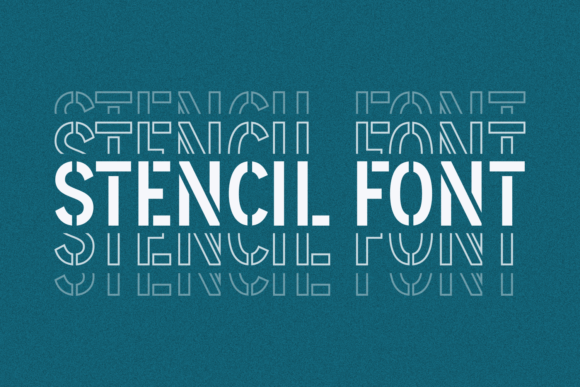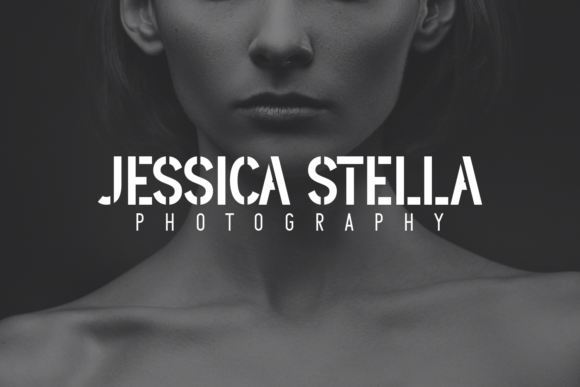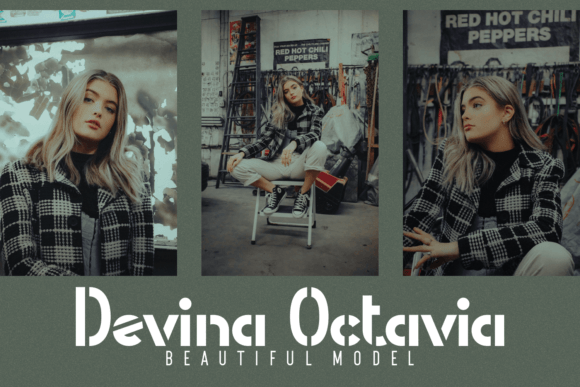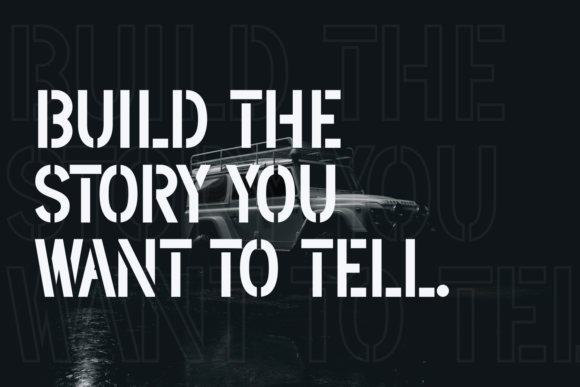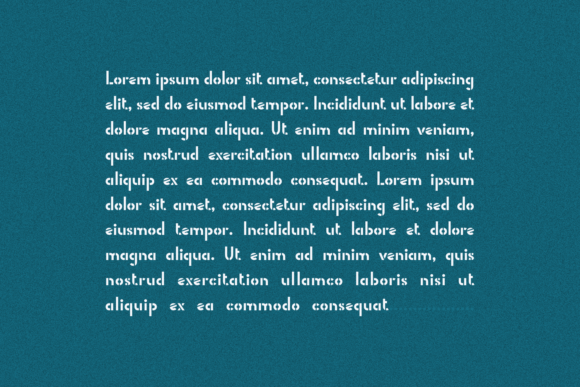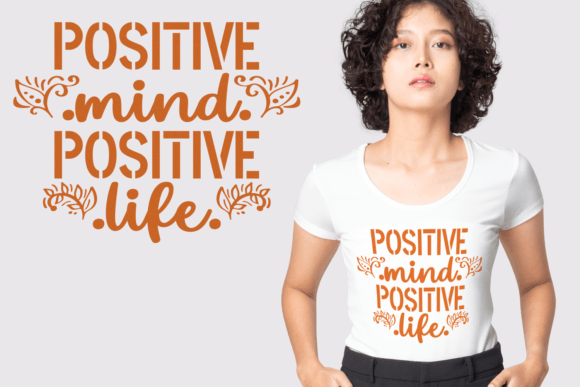
Introduction to Rustize Font
Rustize is a retro and unique display font, designed to transport you back in time with its vintage flair.
With its distinctive and bold letterforms, this font exudes a sense of nostalgia and charm that is perfect for branding, packaging, and editorial design Get ready to add a touch of retro style to your project with this font.